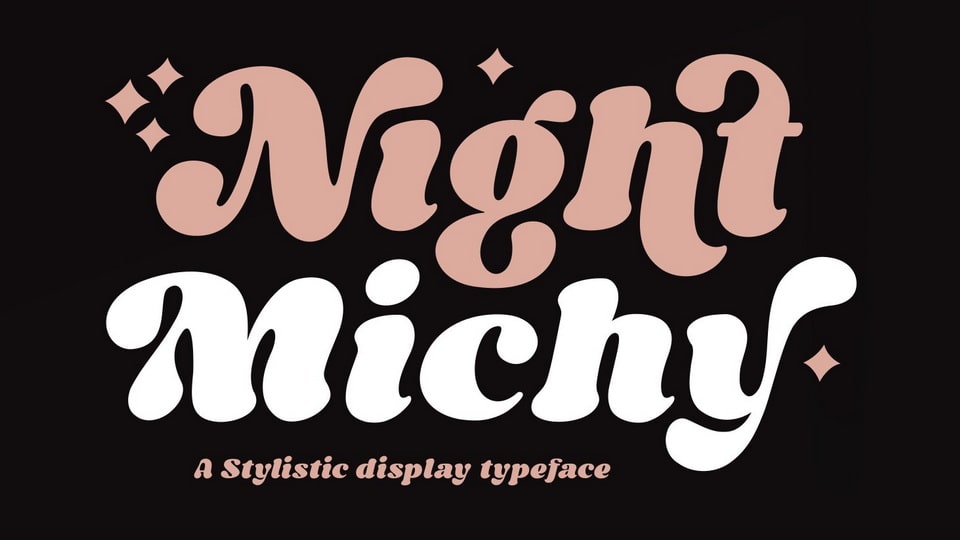
Feb 2, 2025DisplayNight Michy Font Night Michy is a bold vintage style serif font with strong character and soft features. It’s a very versatile font that works great at large. Font DetailsDesigned by: Zeenesia StudioWebsiteLicense: Free for personal use Download Night Michy FontFile size: 31.23 KBCreated: February 16, 2025Updated: February 16, 2025 Download Explore similar fonts July Bubble Font Retro Friday Font Dopsy Font Weird Talks Font Roleo Font Meldine Font # Smooth# Vintage More fonts by Zeenesia StudioCorva Round FontBranch FontBromo Plateau Font DuoMagic Romance FontMetha FontQitella FontDunkies FontBlack Rover Font